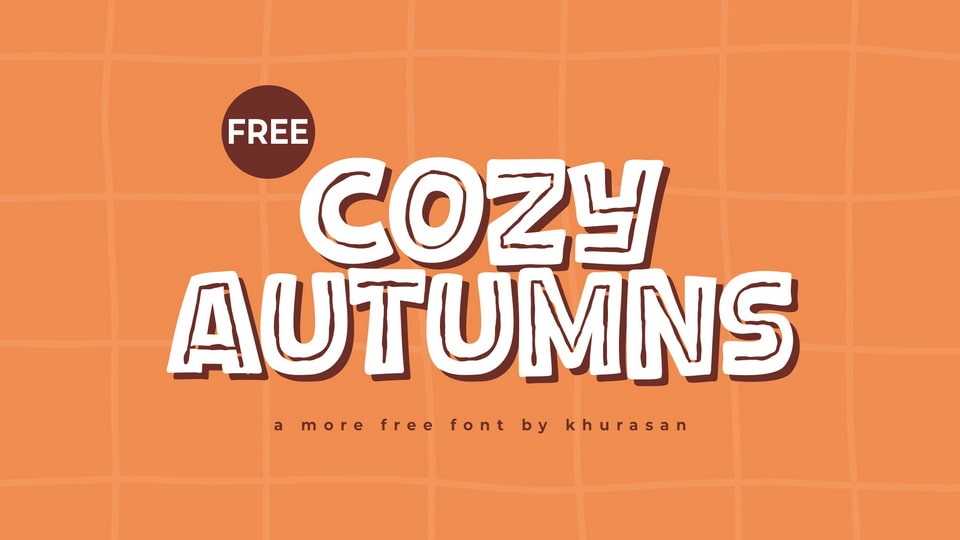
Download Cozy Autumns font, a bold hand-drawn display typeface with a rustic charm and playful personality. Its textured strokes and irregular outlines give it a handcrafted feel.